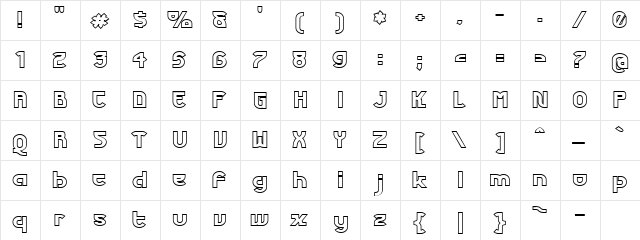
Futurex Phat Outline Regular
Design Context for Futurex Phat Outline Typeface
Futurex Phat Outline has a distinctly futuristic character, with geometric precision and clean angles that feel at home in technology, gaming, and sci-fi contexts.